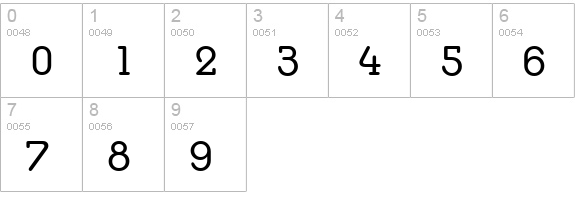
MexicoSerial-Regular Font Details
MexicoSerial-Regular is the standard, neutral variant in the MexicoSerial typeface family \xE2\x80\x94 well suited to general body text, paragraphs, and standard typographic work.
MexicoSerial-Regular font is a versatile typeface that combines elegance with a touch of playfulness. Its clean lines and sharp edges make it perfect for a wide range of design projects, from branding to editorial layouts. The font exudes a sense of modern sophistication, making it an ideal choice for both digital and print applications. What sets MexicoSerial-Regular font apart is its unique character set, which includes a variety of alternate glyphs and ligatures that add flair and personality to your text. Whether you're looking to create a bold headline or add a subtle flourish to your body copy, this font has you covered. Best of all, MexicoSerial-Regular font is available for free download at FontsMarket.com. This means you can start using it in your projects right away, without having to worry about licensing fees or restrictions. So why wait? Add MexicoSerial-Regular font to your design arsenal today and take your creations to the next level.